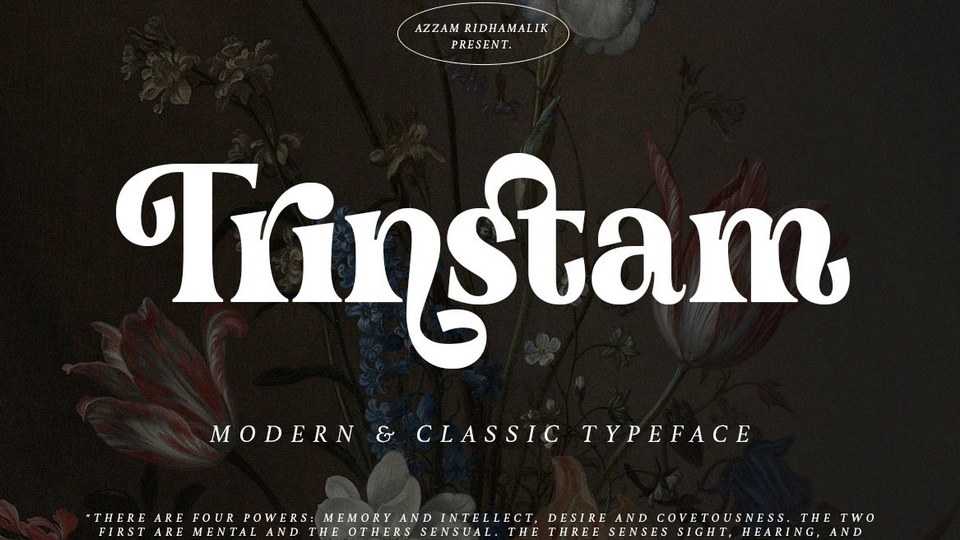
Download Trinstam font, a fancy modern and classic serif typeface with a clear and bold look. Trinstam is a very versatile font that works great in large and small sizes.